Fiction books have a certain strong appeal with their narration, allowing readers to enter the world of imagination, fantasy, and emotions built by the author. The imaginative story plots are often the main reason why someone would choose a novel or fictional story. However, a good story does not always appeal to the audience, especially when it’s from new authors who are not yet well-known.
Therefore, the visual look of the book cover becomes an important part here. A book cover with a compelling visual will easily attract attention from people, readers or not. Even for avid readers, before enjoying the story, they will first interact with the look of the books, including the cover, layout, and typography.
Fonts are also important in creating the cover’s visual, not just illustrations or pictorial designs. Fonts hold a crucial role in delivering the first impression and the story’s character, as well as influencing readers’ perceptions of the genre and atmosphere of the book.
That’s why selecting the most suitable font for fiction books is an important step for authors, designers, and publishers. This article offers lists of great fonts for designing fiction books, perfect for not only the covers but also the branding.
Firstly, we have Castre. This serif font showcases elegance, serenity, and class. Its characters have balanced proportions with smooth ligature details, presenting a classic, flexible nuance well. Castre works perfectly for designing fiction books with drama, historical, or romance genres.
The next font is Wornas, a display serif font with a thick and artistic character, giving off a sense of strength and expressiveness. This font is suitable for titles or covers for various fiction books, including fantasy and adventure genres. At first glance, its distinct letterforms can significantly enhance the atmosphere of the story.
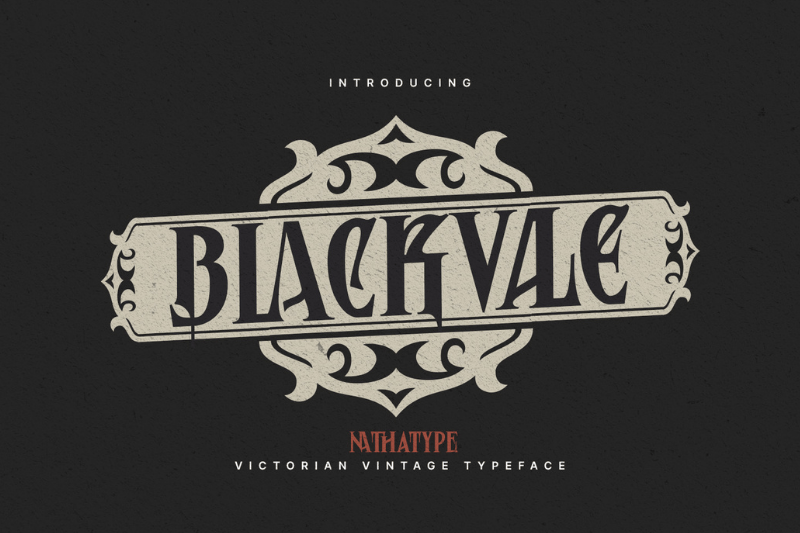
Blackvale, a Victorian vintage font with strong decorative elements, presents an incredibly dramatic classic impression. It has a striking, bold serif style, strong strokes, sharp corners, and decorative details. The visual character works perfectly for fiction books with dark, mysterious, or historical nuances.
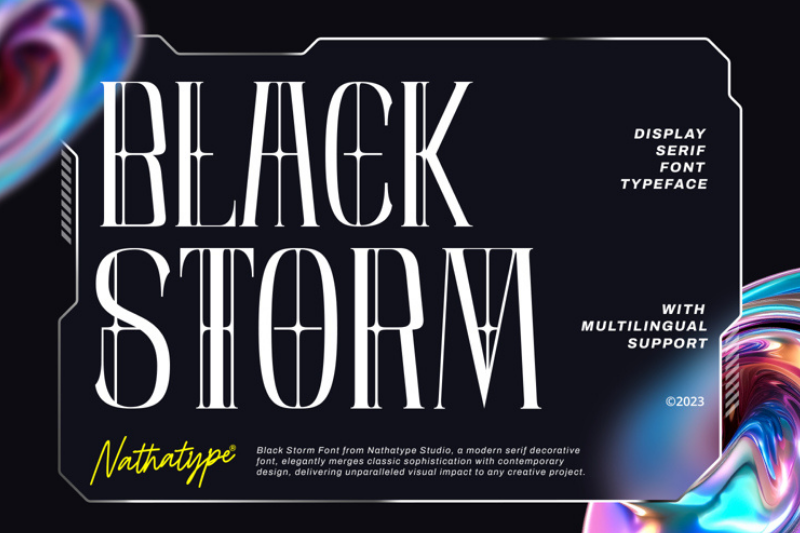
Black Storm presents a thin decorative letter character. With high contrast between thick and thin lines, Black Storm gives off modernity and dramatic sharpness. The details of the letters create a visual illusion resembling a magical effect often found in fiction stories, as if the letters have their own energy. Thus, this font is very suitable for fiction books that want to appear intense and full of tension, especially in the title or cover text.
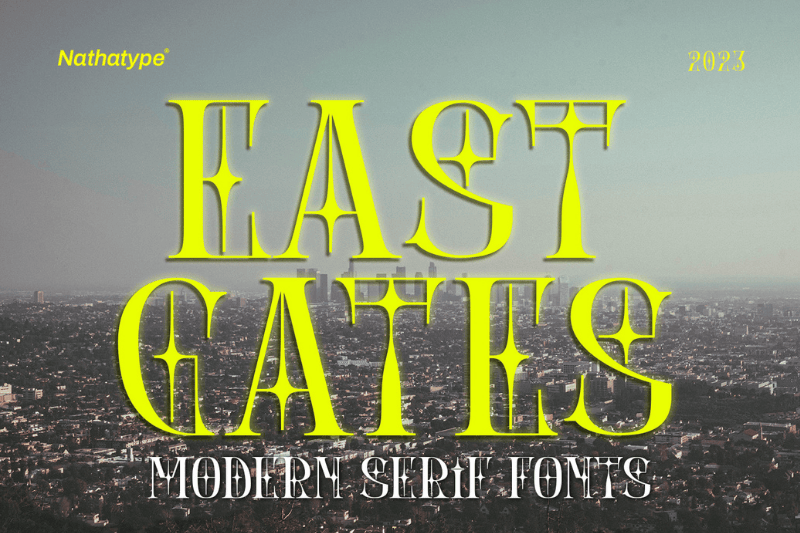
With thick serif characters and a tall, wide shape, East Gates gives a grand and theatrical impression. The additional decorative forms, such as blinks and artistic ligature details, enrich the font and create a dramatic and eccentric visual. The character of this font makes it suitable for the covers of fiction books with a strong fantasy or imaginative world atmosphere.
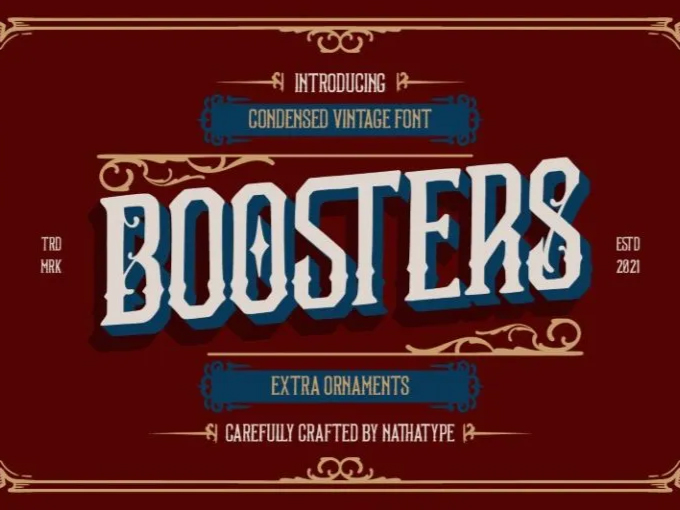
Boosters is a condensed serif font with a wide shape and strong structure, enriched with classic ornaments inspired by a vintage style. This font character is ideal for writing titles on the covers of fictional books with themes such as adventure, Western, or classic stories. The letter proportions of Boosters are tight, creating a solid and daring impression. Meanwhile, its decorative details give a beautiful nostalgic touch in each of its strokes.
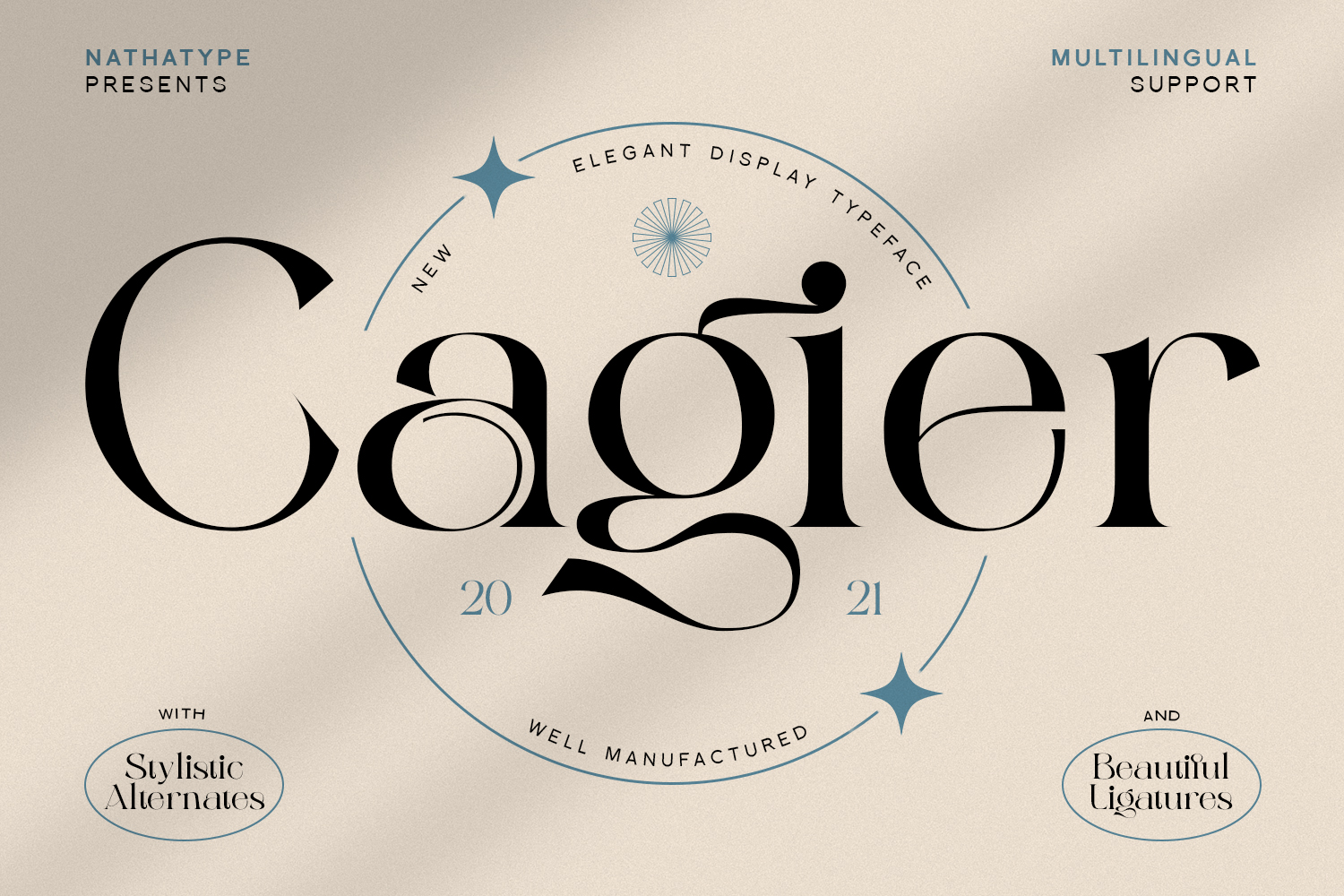
Cagier offers an elegant serif character with smooth contrast between thick and thin lines, compelling ligature details, and classy letter proportions. The curves of the letters create an elegant and romantic feel, making it perfect for the covers of fiction books. This font allows you to create an intimate emotion and elegance at first glance.
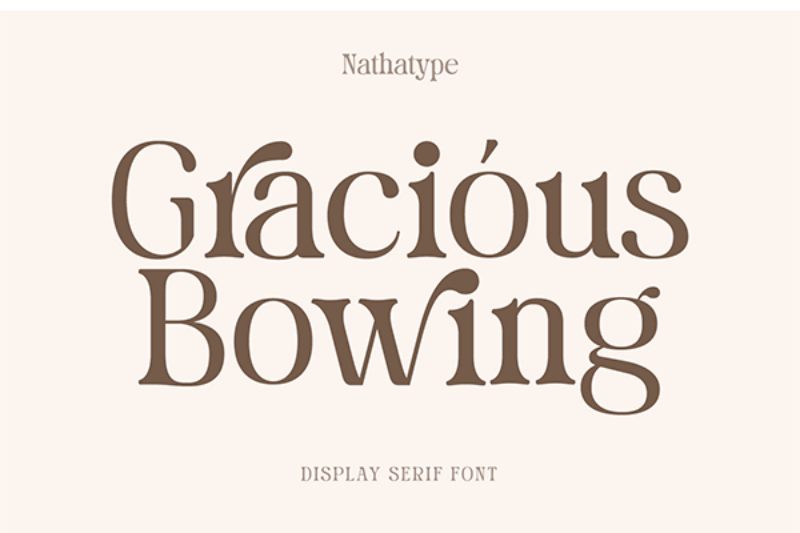
Gracious Bowing is a display serif font with smooth curves and letter endings, making it seem like it flows naturally. The letterforms are graceful, warm, and emotional at the same time. Despite that, the visual rhythm is calm, perfect for romantic fiction books with a deep feel and intimate story plot.
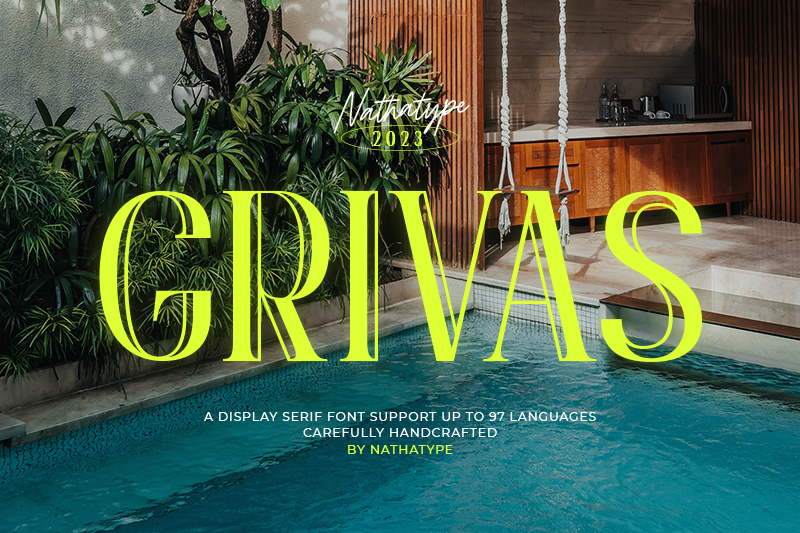
Grivas is a display serif font that boasts a solid and modern aesthetic. This font has a balanced proportion and sharp contrast. Moreover, its character is striking, yet it still looks artistic, creating a dramatic atmosphere and tense visual. Grivas is ideal for thriller, mystery, or urban contemporary fiction books.
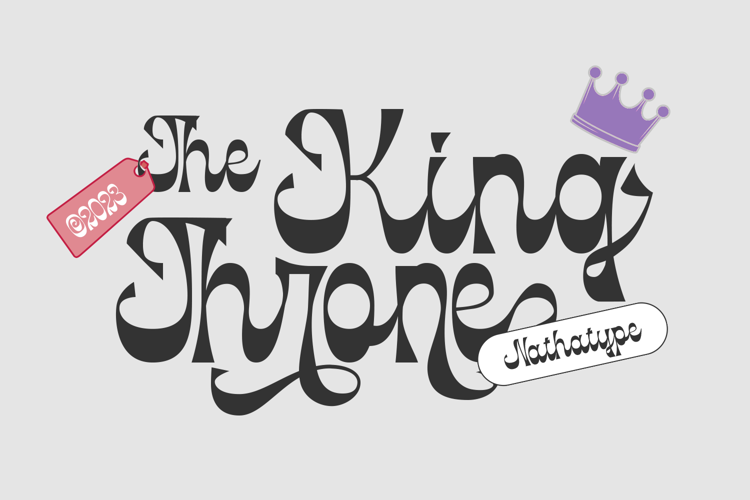
Next, we have the King Throne font. It is a display serif font with an expressive thick curve, making the overall appearance playful and visually appealing. Its letterforms are dramatic and appropriate for fairy tale, adventure, and fantasy fiction books.
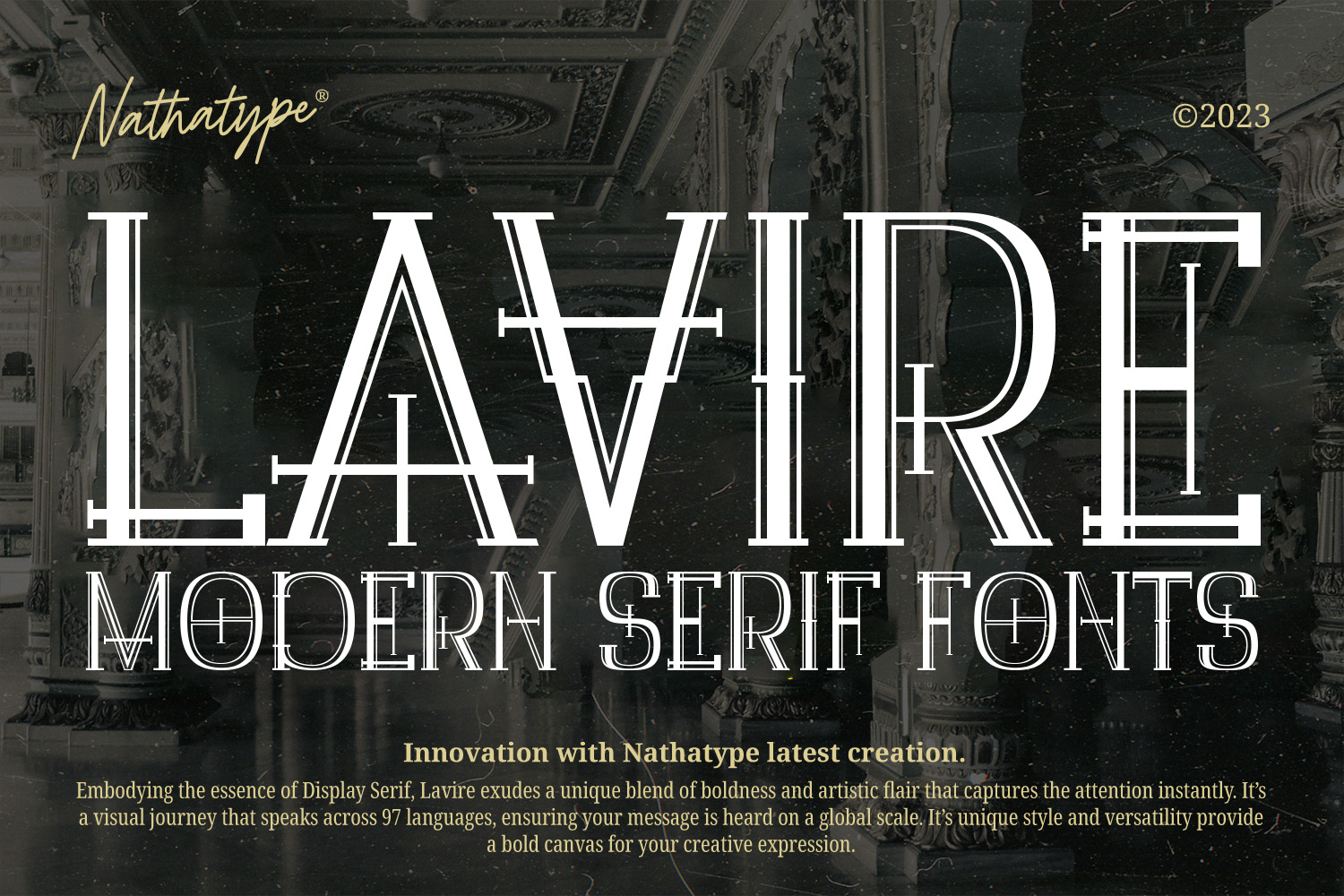
In conclusion, font selection for fiction involves more than just aesthetics; it is also about how it enhances the story’s concept. Discover more typographic characters, font recommendations, and other types of articles on Nathatype to get ideas for your story styles and imagination.